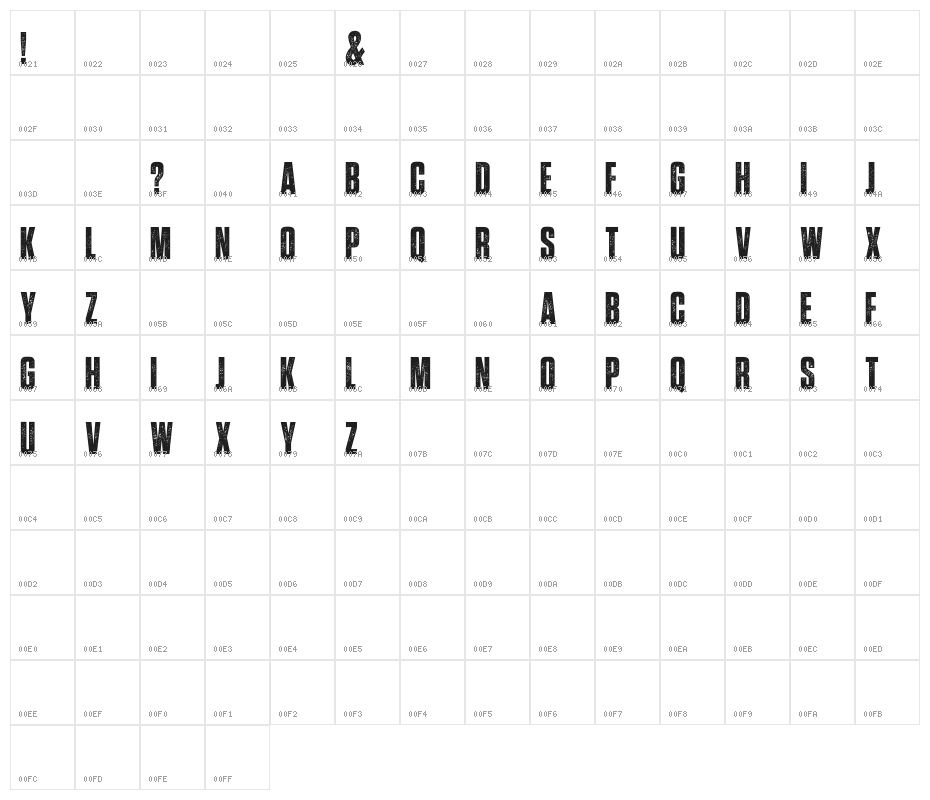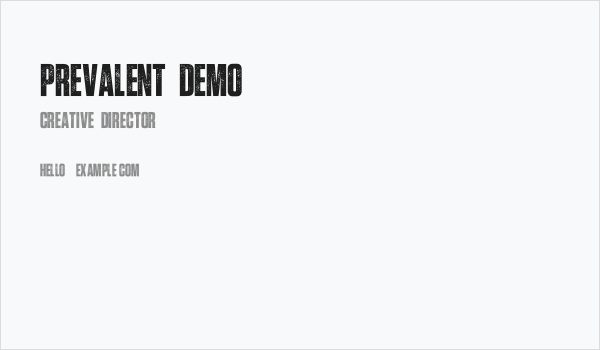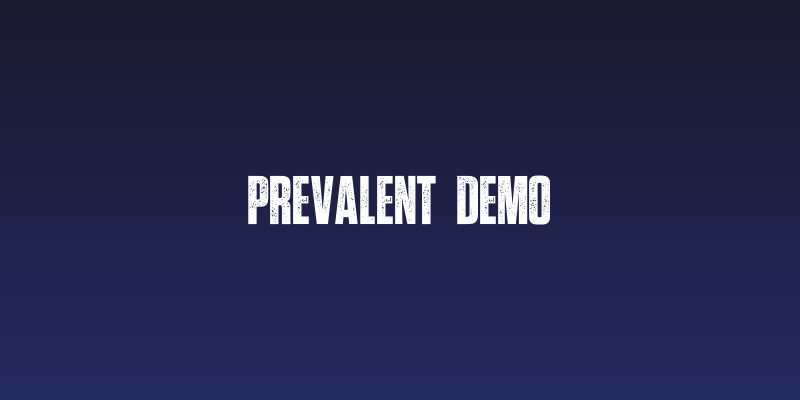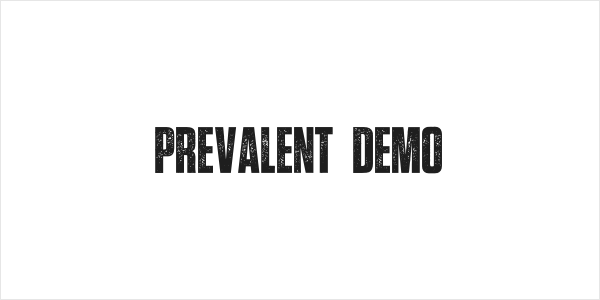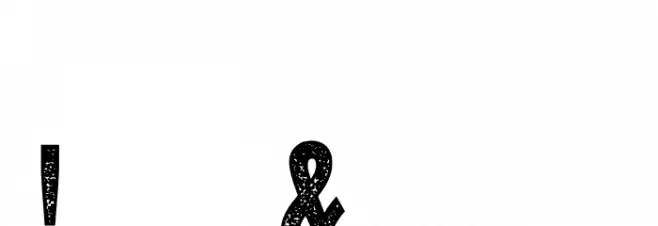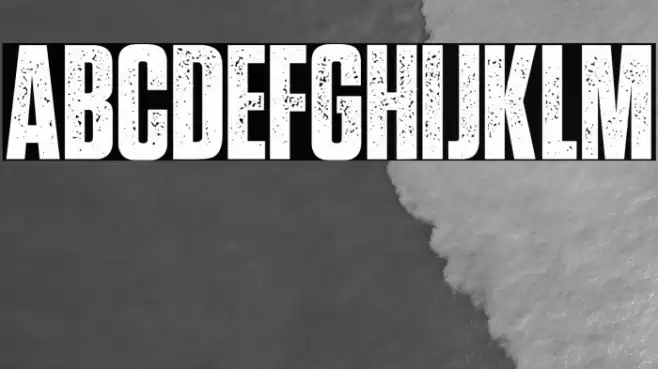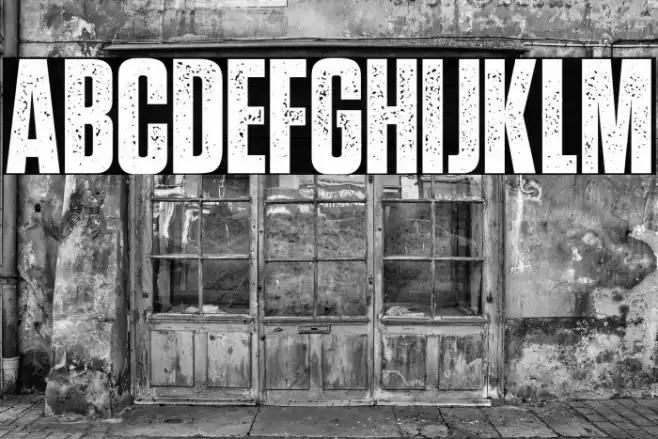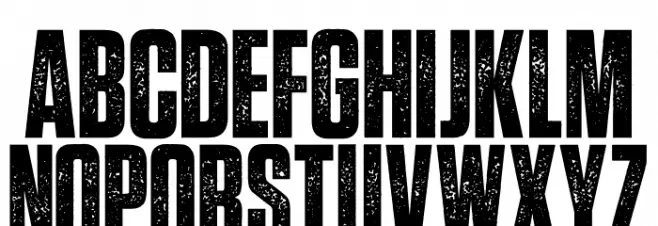
Prevalent Demo Font
Prevalent Demo Description
This font features a bold, distressed style with a textured appearance that gives it a rugged and vintage feel. The uppercase letters are prominent and impactful, making it ideal for attention-grabbing designs. The characters are tightly spaced, enhancing the boldness and presence of the text. The font's distressed texture adds a layer of depth and character, making it suitable for projects that require a rustic or industrial aesthetic. The numbers and special characters maintain the same distressed style, ensuring consistency across all text elements.
| Proposed Projects | Ideal for posters, logos, branding, and any design requiring a vintage or industrial look. |